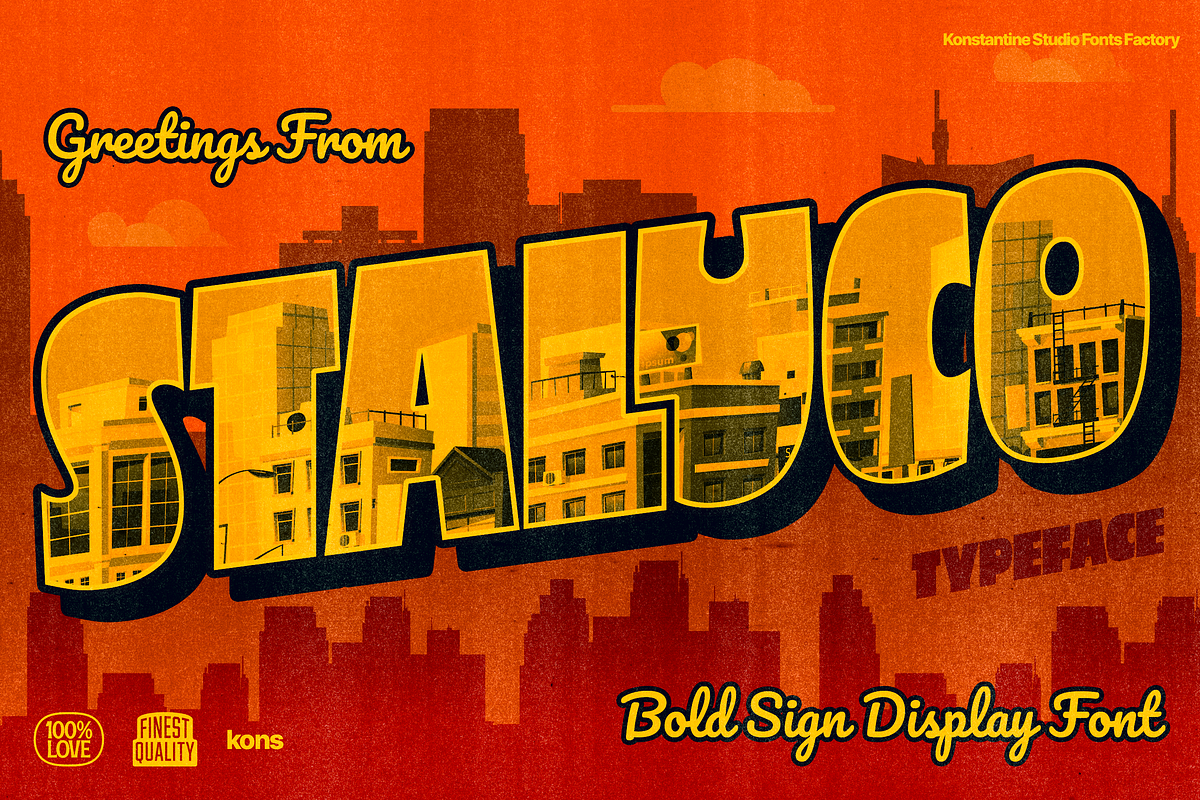
Staluco - Bold Sign Display Fonts Free Download is a striking and powerful typeface designed to make your message stand out loud and clear. With its solid structure, clean lines, and commanding presence, Staluco is perfect for storefront signage, vintage logos, event posters, product packaging, and editorial headlines. It draws inspiration from traditional sign painting, giving your designs a bold, retro-meets-modern vibe.
This display font is built for high visibility and impact, making it ideal for both print and digital use. Whether you're promoting a brand or making a statement, Staluco ensures your typography takes center stage.